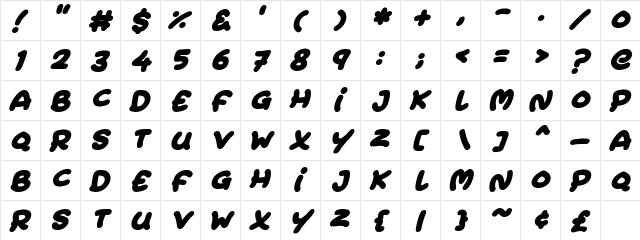
Extra Fruity Italic
Design Context for Extra Fruity Typeface
Extra Fruity is a composed and adaptable typeface that performs quietly and consistently across a wide range of design contexts. The dynamic lean of this cut emphasises speed and emphasis in any layout.
Pro Tip: Try Extra Fruity for annotation and caption copy alongside an upright companion — the contrast in angle creates a dynamic but ordered typographic system.